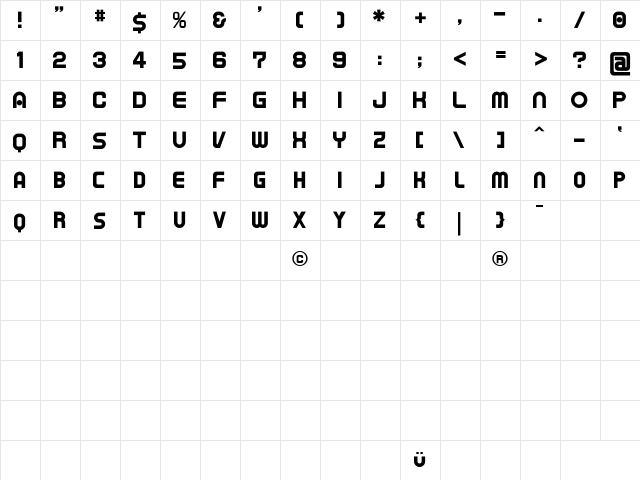
TAPEMAN Regular
Design Context for TAPEMAN Typeface
TAPEMAN takes a measured approach to typography — its balanced proportions and neutral character make it a reliable workhorse for both digital and print work.